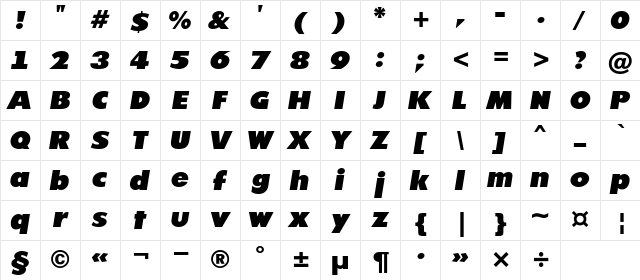
Complete a_FuturicaNord Italic glyph index. Displaying only characters natively supported by a_FuturicaNord Italic font.
a_FuturicaNord has a distinctly futuristic character, with geometric precision and clean angles that feel at home in technology, gaming, and sci-fi contexts. The slanted form adds forward momentum and visual energy.